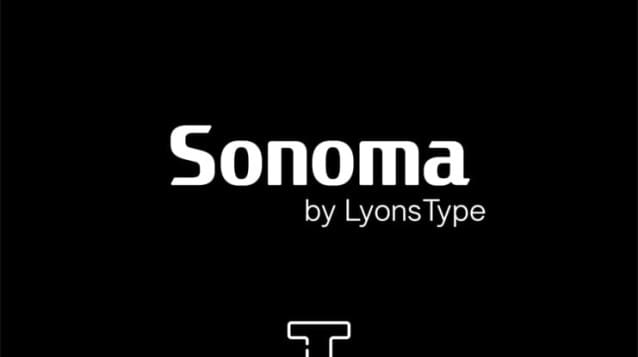
LT Sonoma Font, it would be a perfect choice to design posters, affiches, logos, t-shirt and magazine prints, eye-pleasing typographic designs and more.
LT Sonoma Font